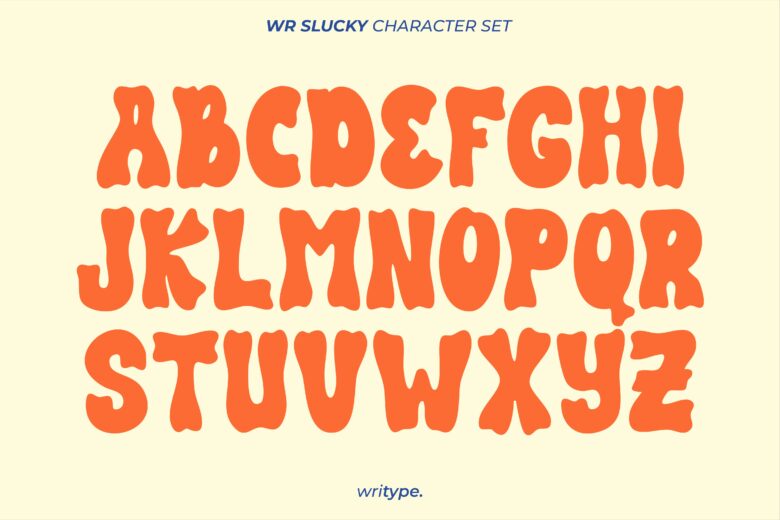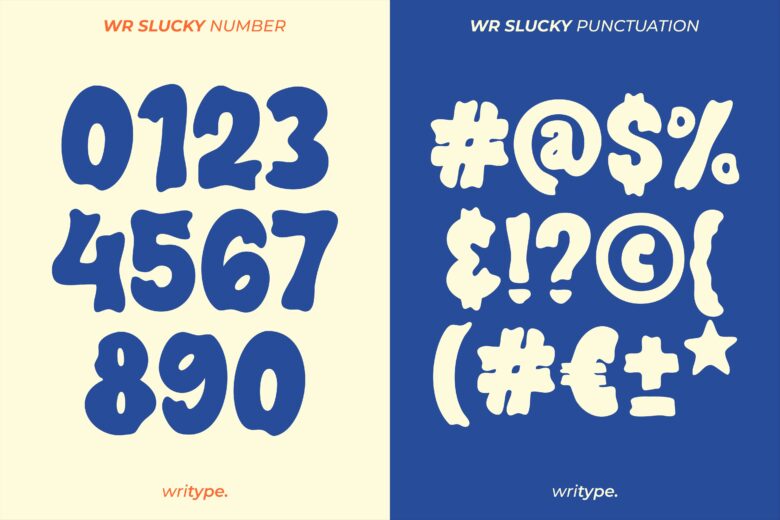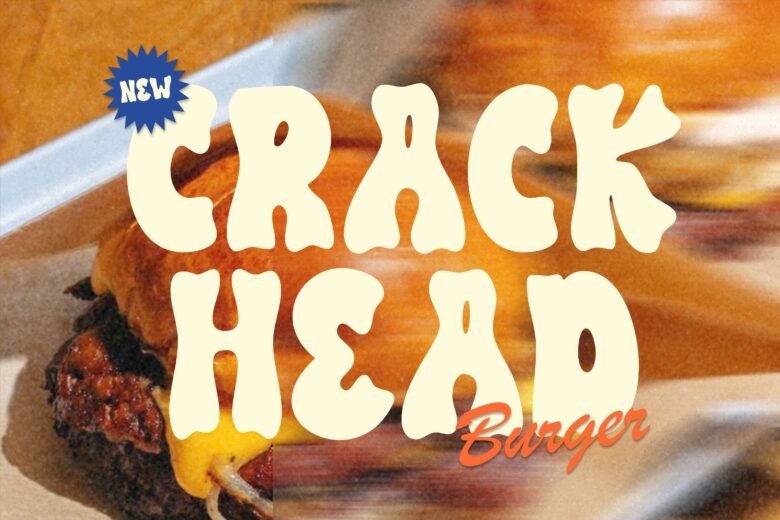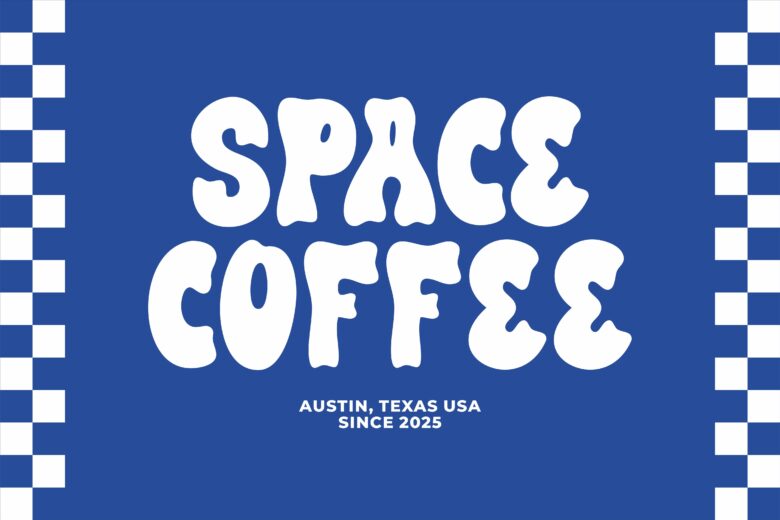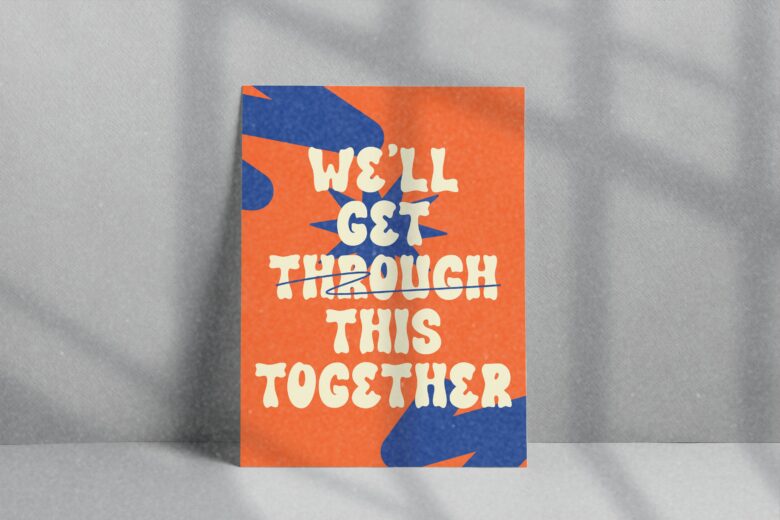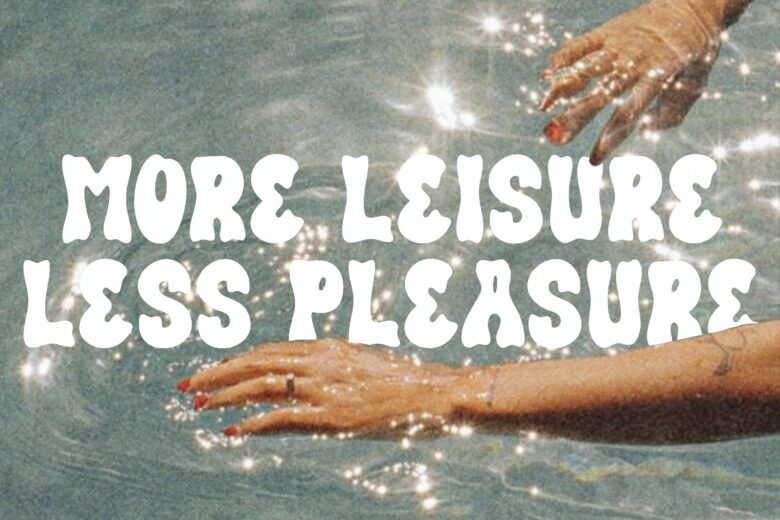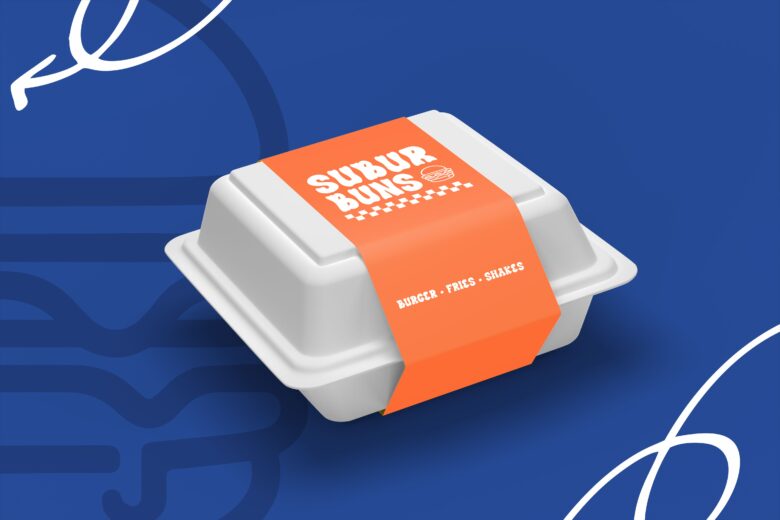
WR Slucky Display - Retro Funky Font
WR Slucky Display – Retro Funky Font
WR Slucky Display is a bold, hand-drawn display font with a unique and expressive character. Its thick strokes and organic shapes make it perfect for branding, posters, packaging, and standout design projects. Whether you’re aiming for a playful or edgy look, WR Slucky Display adds personality and impact to any composition.